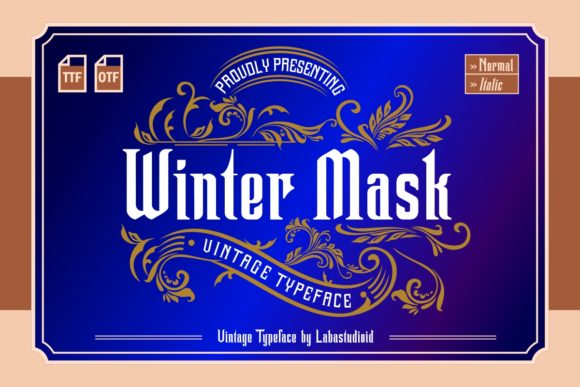
Welcome to the realm of typography, where imagination meets expression! Step into the world of Winter Mask Font, a blackletter masterpiece crafted to ignite your creative spark.
At first glance, Winter Mask Font's bold and striking presence demands attention. Its intricate letterforms, reminiscent of medieval manuscripts, exude an air of timeless elegance and intrigue. The font's thick, sweeping strokes and sharp edges create a visual symphony that captivates the senses. This captivating font boasts a range of stylistic alternatives and ligatures, allowing you to customize your designs and add a touch of individuality to your projects. With Winter Mask Font as your ally, you can effortlessly elevate your designs, adding depth and dimension to your creative vision.
Harness the power of Winter Mask Font to craft logos that command attention and leave a lasting impression. Its bold and distinctive character will ensure your designs stand out from the crowd. Unleash your creativity and forge unique branding elements that reflect the essence of your brand. Winter Mask Font's unwavering boldness lends itself perfectly to headlines and posters. Let your words take center stage, commanding attention and delivering your message with undeniable impact. This font's ability to effortlessly draw the eye makes it an ideal choice for creating eye-catching social media graphics, ensuring your posts and ads captivate your audience.
But Winter Mask Font's versatility doesn't end there. Its bold strokes and playful curves bring a touch of whimsy to invitations, greeting cards, and flyers. Add a personal touch to your special occasions and spread joy through captivating designs. Elevate your web designs with Winter Mask Font's captivating presence. Its strong personality adds visual interest to website headers, buttons, and call-to-action elements, guiding users through your digital landscape with elegance and ease. Dive into the world of Winter Mask Font and unlock a world of creative possibilities. Let this extraordinary font ignite your passion and transform your designs into masterpieces that resonate with your audience.